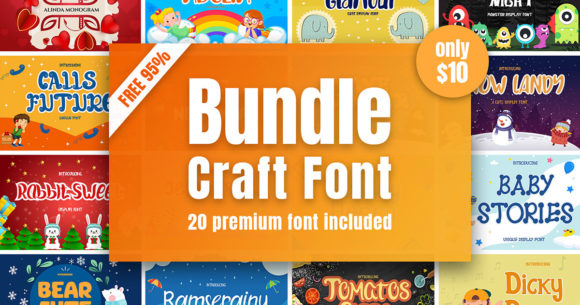
Crafting Fonts Bundle
If you are looking for high-quality assets like Crafting Fonts Bundle, this premium package is a fantastic choice for your creative projects.
Crafted with precision, Crafting Fonts Bundle provides clean vectors, smooth typography, and a commercial license for peace of mind.
Whether you are creating POD (Print on Demand) products, wedding invitations, or social media graphics, Crafting Fonts Bundle is an ideal fit.